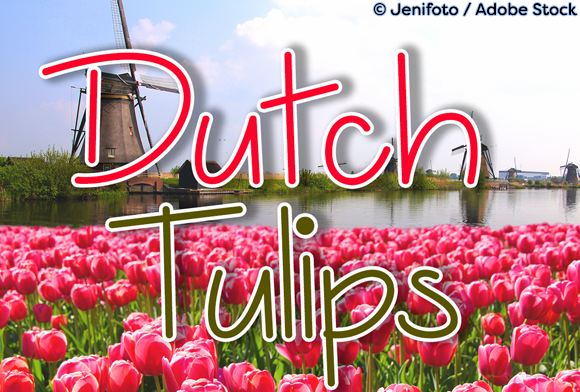
Dutch Tulips Font
About Dutch Tulips Font
Dutch tulips is a beautiful typeface. It can be used for various purposes such as headings, logos, invitations, t-shirt designs, greeting cards, posters, labels, book covers, brochures, and much more!